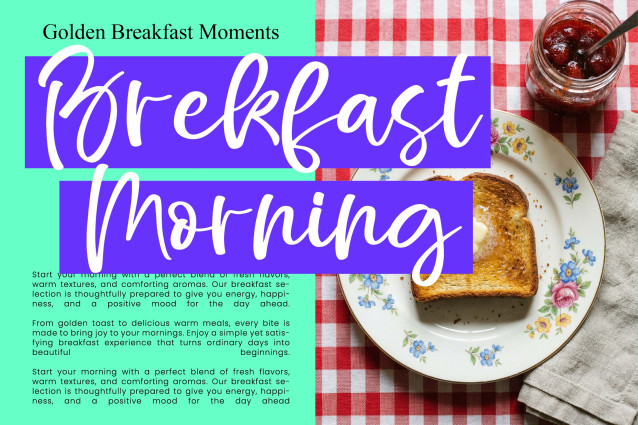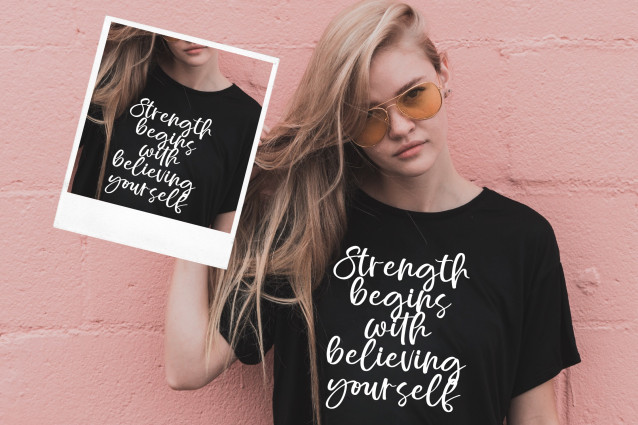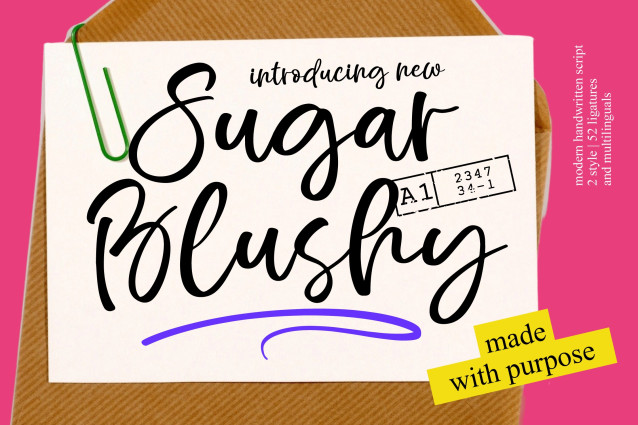
Sugar Blushy – Modern Handwritten Script is a masterclass in contemporary calligraphy, blending a chic aesthetic with an authentic, hand-drawn feel. Its fluid strokes and rhythmic character movement create a sophisticated atmosphere that resonates with modern audiences seeking a personal touch. By prioritizing visual harmony, this typeface ensures your message remains legible while exuding an unmistakable sense of bespoke craftsmanship.
Precision meets performance in a font designed to handle the complexities of professional design workflows. Featuring over fifty unique ligatures, this typeface allows for natural connections that mimic genuine handwriting with stunning accuracy. With its extensive multilingual support, Sugar Blushy – Modern Handwritten Script adapts seamlessly across global markets, making it incredibly versatile for international projects. This comprehensive glyph set ensures that your brand voice remains consistent and impactful regardless of the linguistic requirements of your global campaign.